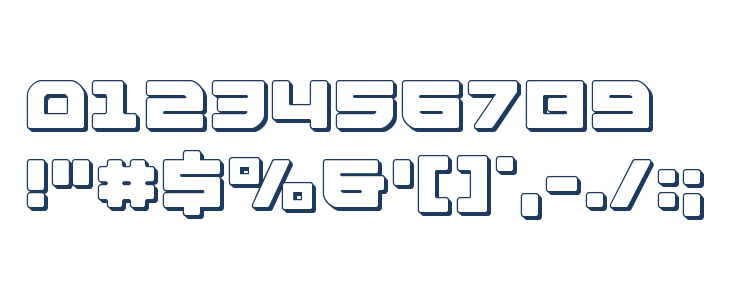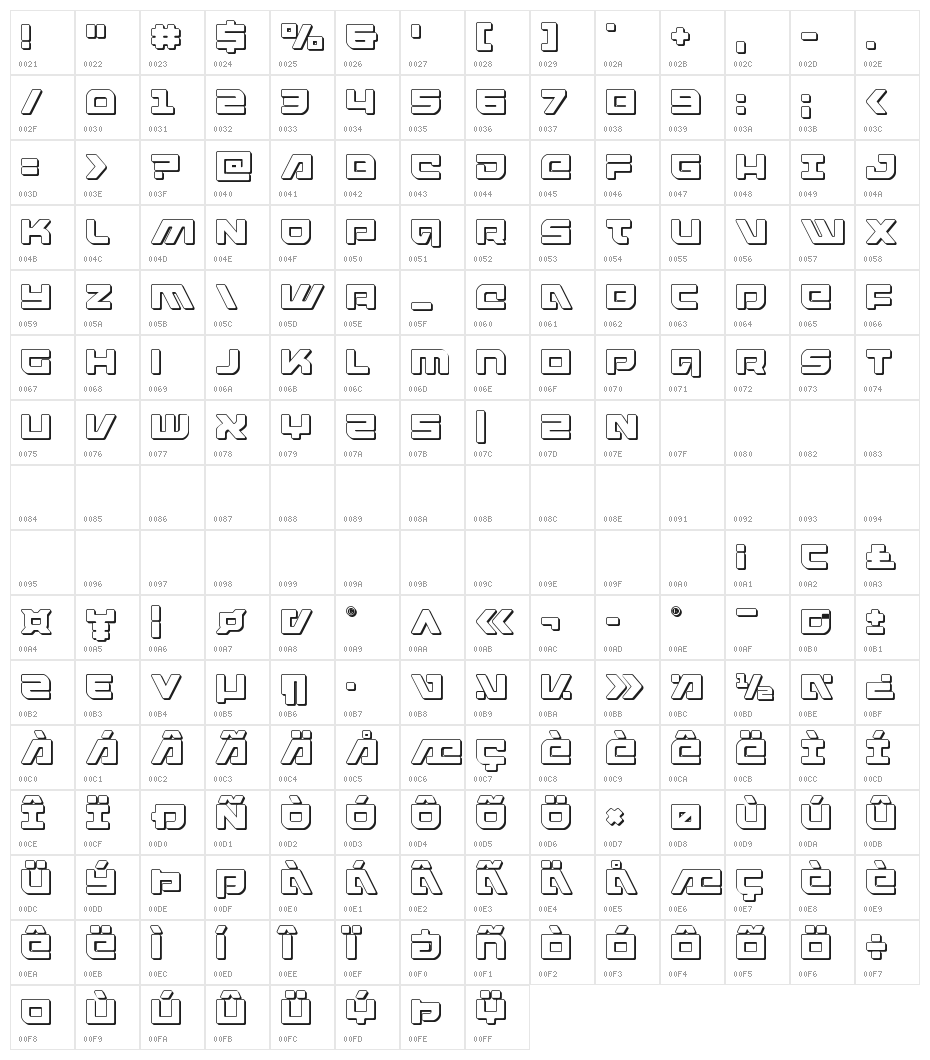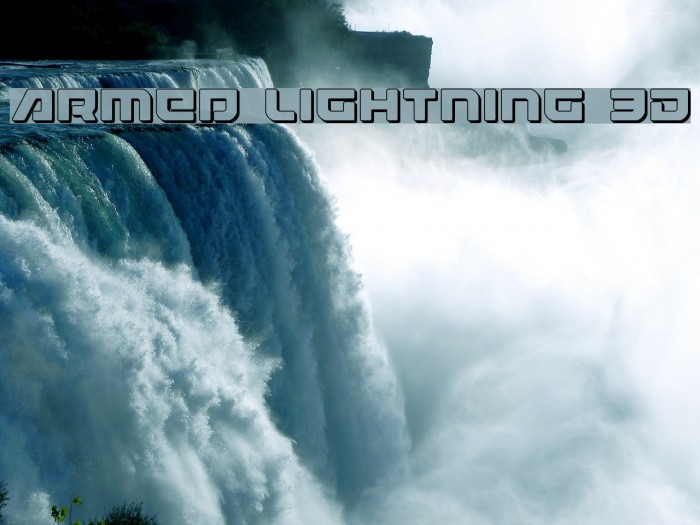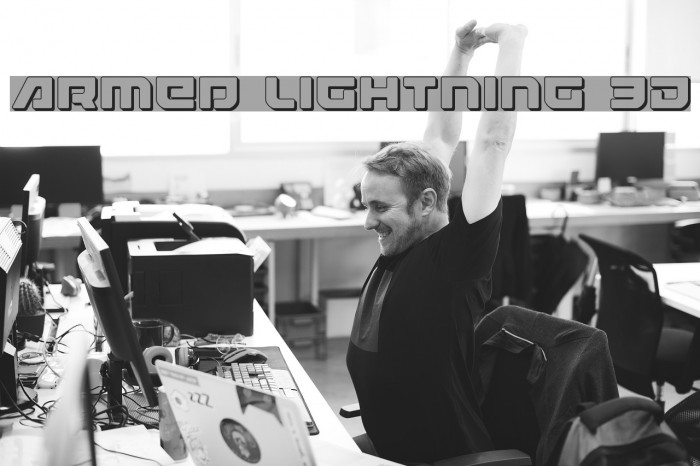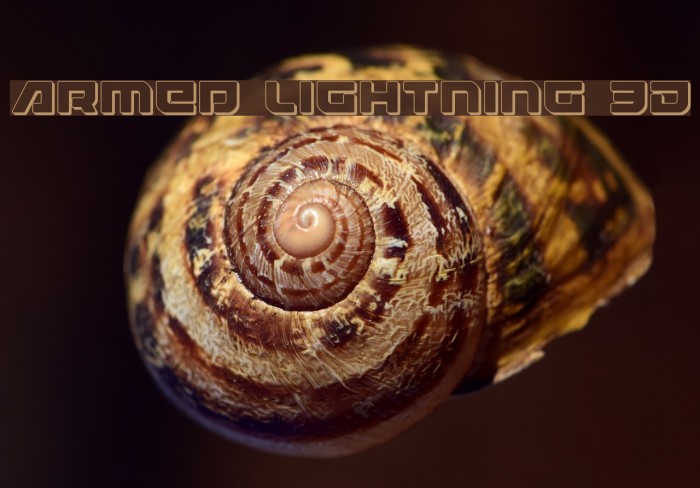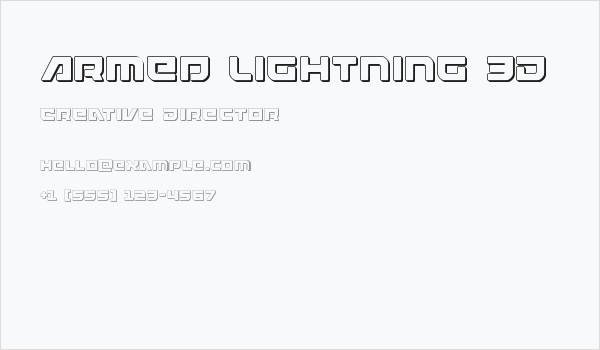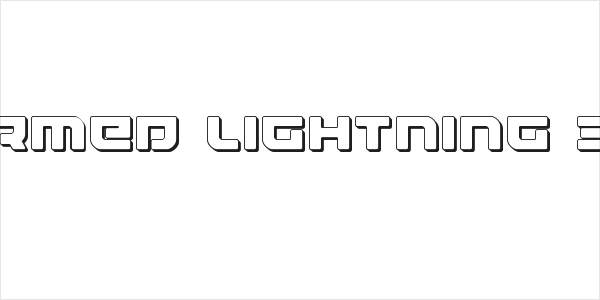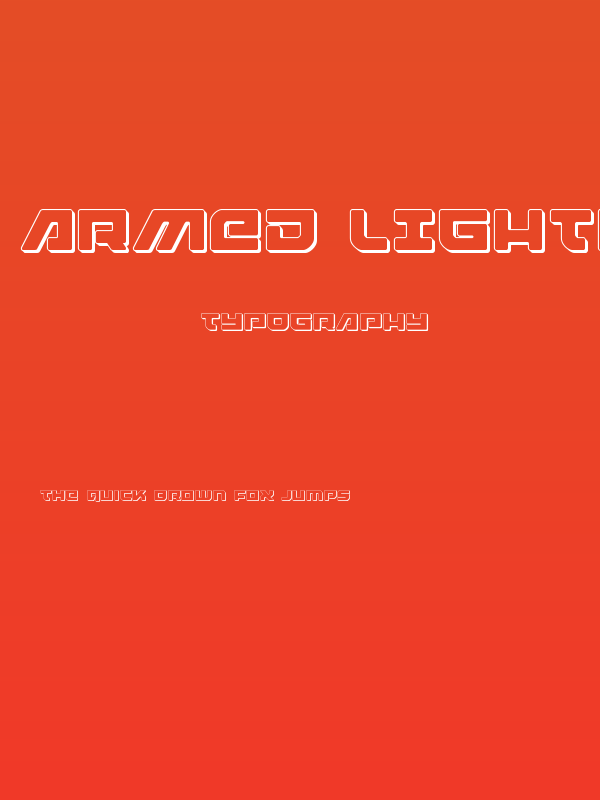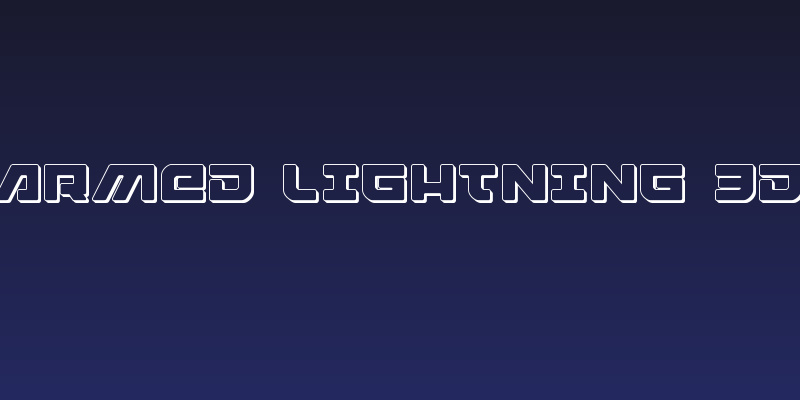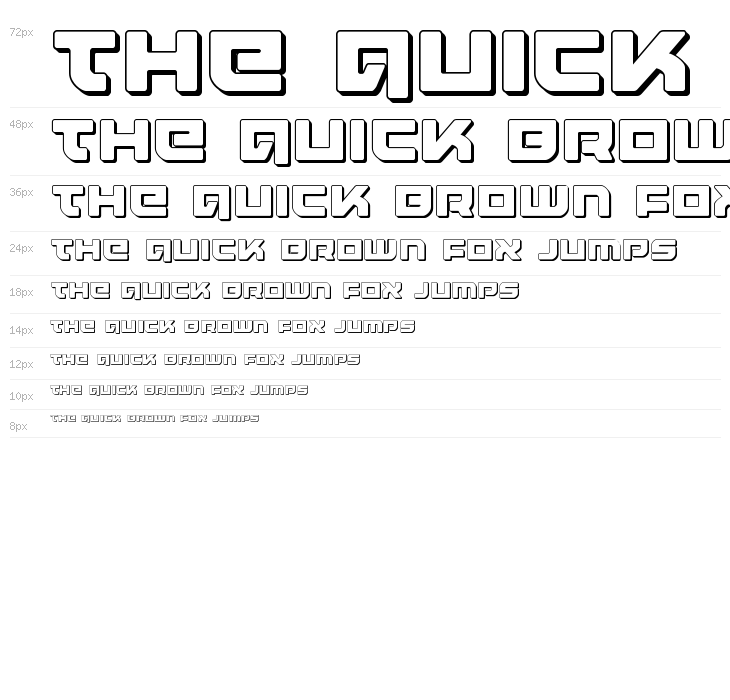
Armed Lightning 3D Font
Armed Lightning 3D Description
This font features a bold, futuristic design with a three-dimensional effect that gives it a striking and dynamic appearance. The characters are outlined, creating a hollow look that enhances the 3D illusion. The geometric shapes and sharp angles contribute to a modern and edgy style, making it ideal for projects that require a strong visual impact. The uppercase and lowercase letters maintain a consistent style, with uniform stroke widths and a balanced structure. The numerals and special characters are designed to match the overall aesthetic, ensuring cohesion across all elements.